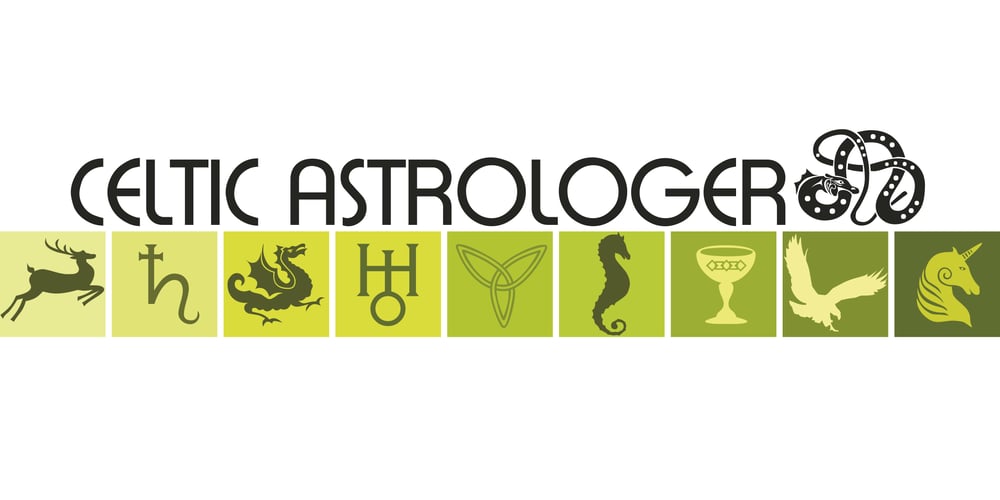
Celtic Astrologer Symbols
Celtic Astrologer Symbols font
Celtic Astrologer Symbols Font Family was designed by Denise Koehler and published by Deniart Systems. Celtic Astrologer Symbols contains 1 styles and family package options. Containing over 130 symbols. Unlike traditional western zodiacs, the Celtic zodiac contains 13 signs instead of 12. This series contains the zodiacs, the planets as well as the Ogham numbers. NOTE: this font comes with an interpretation guide in pdf format.